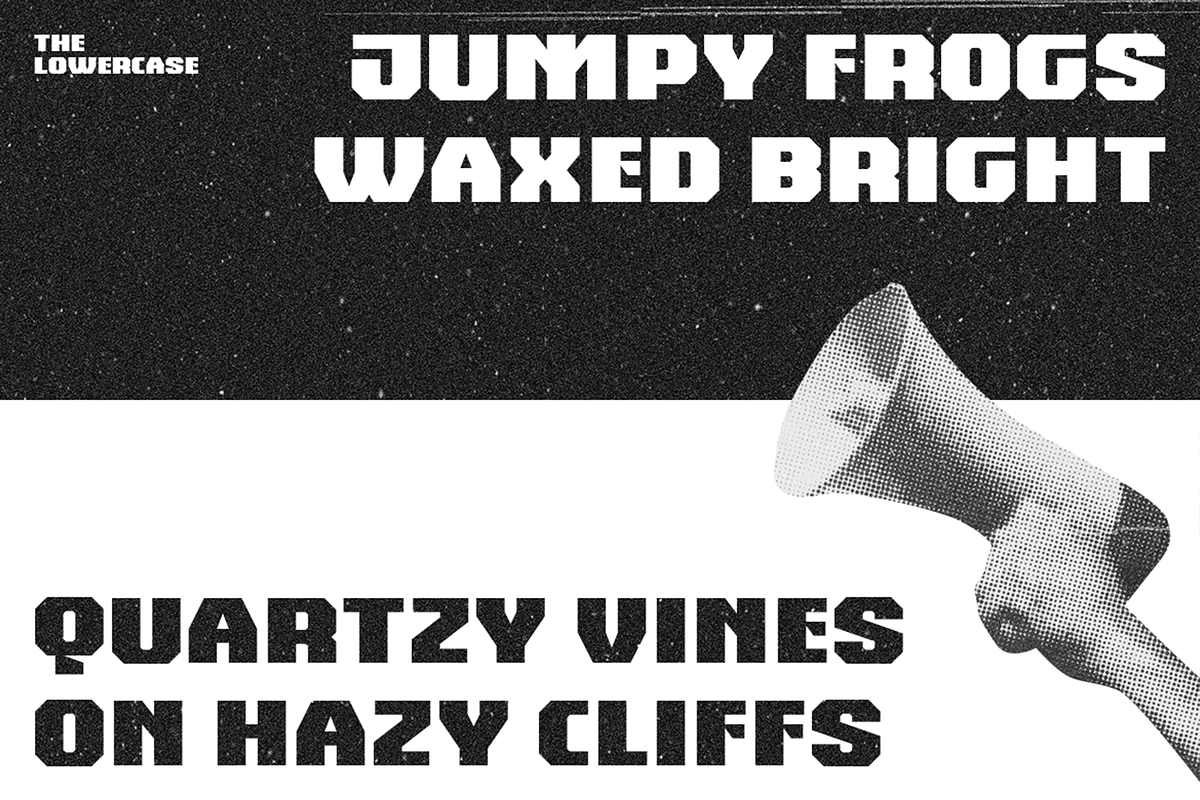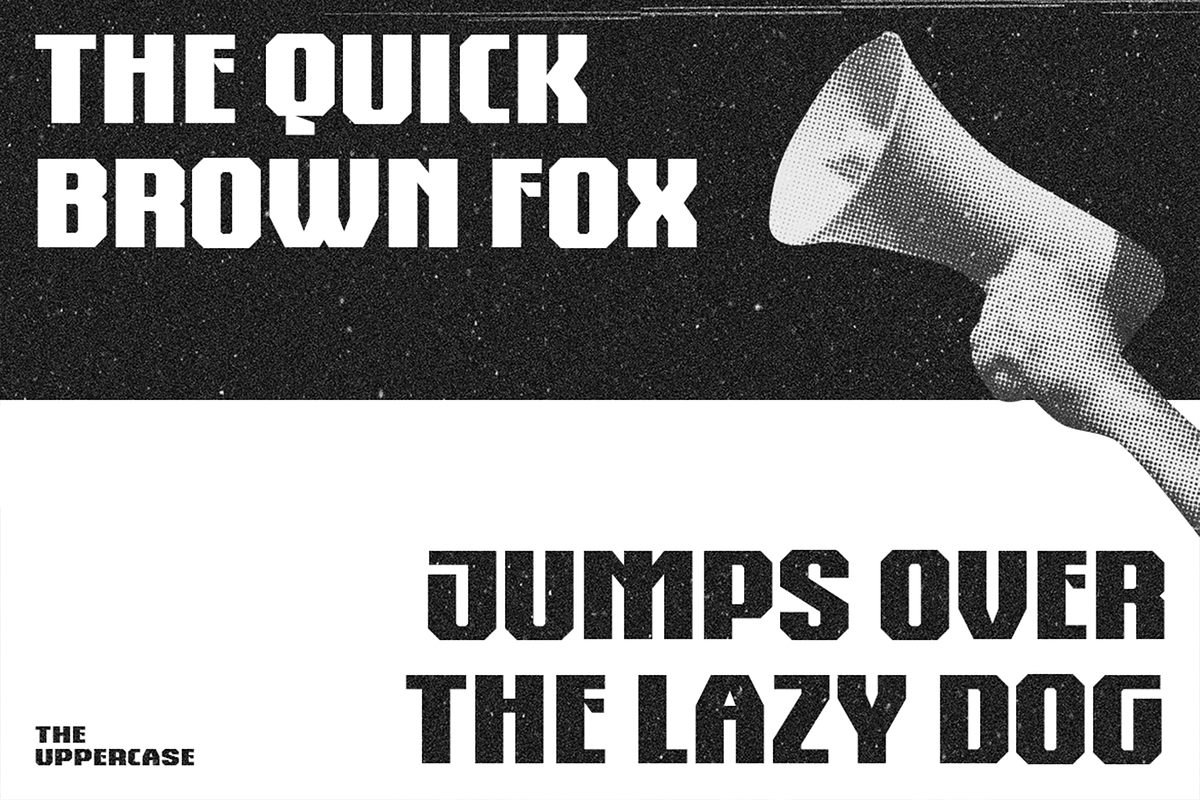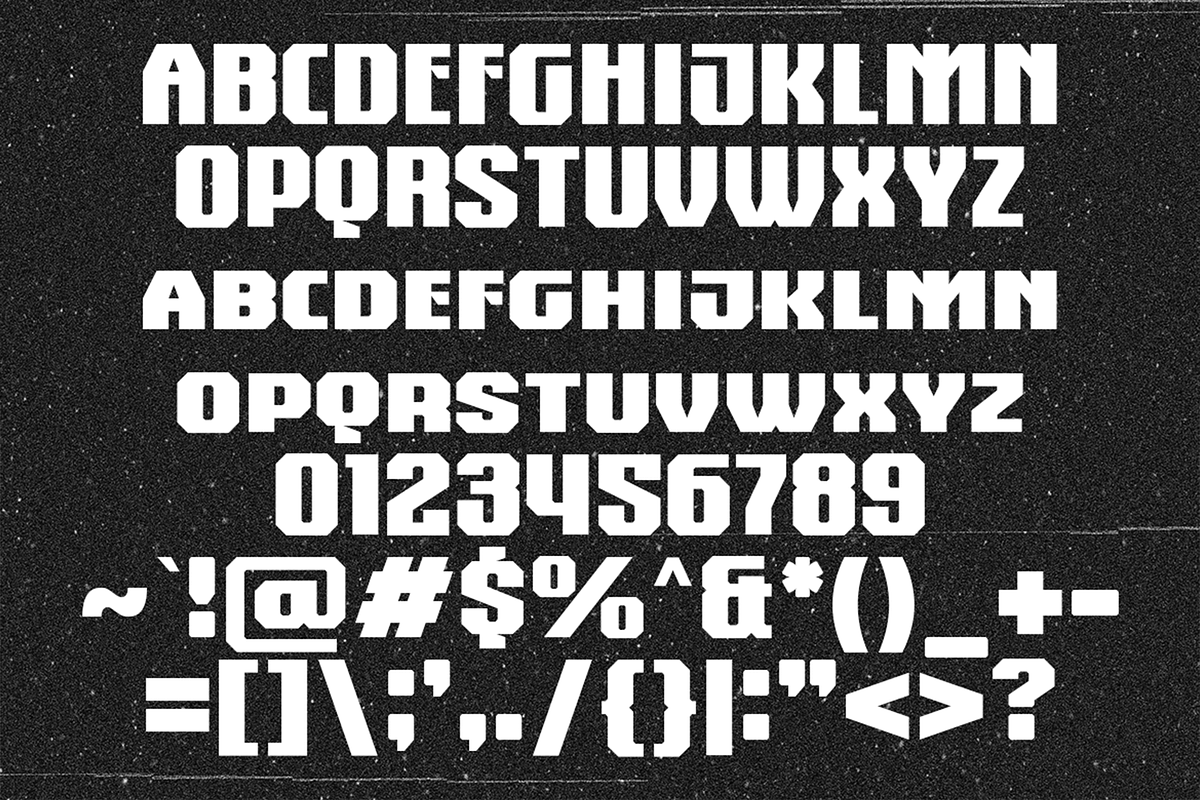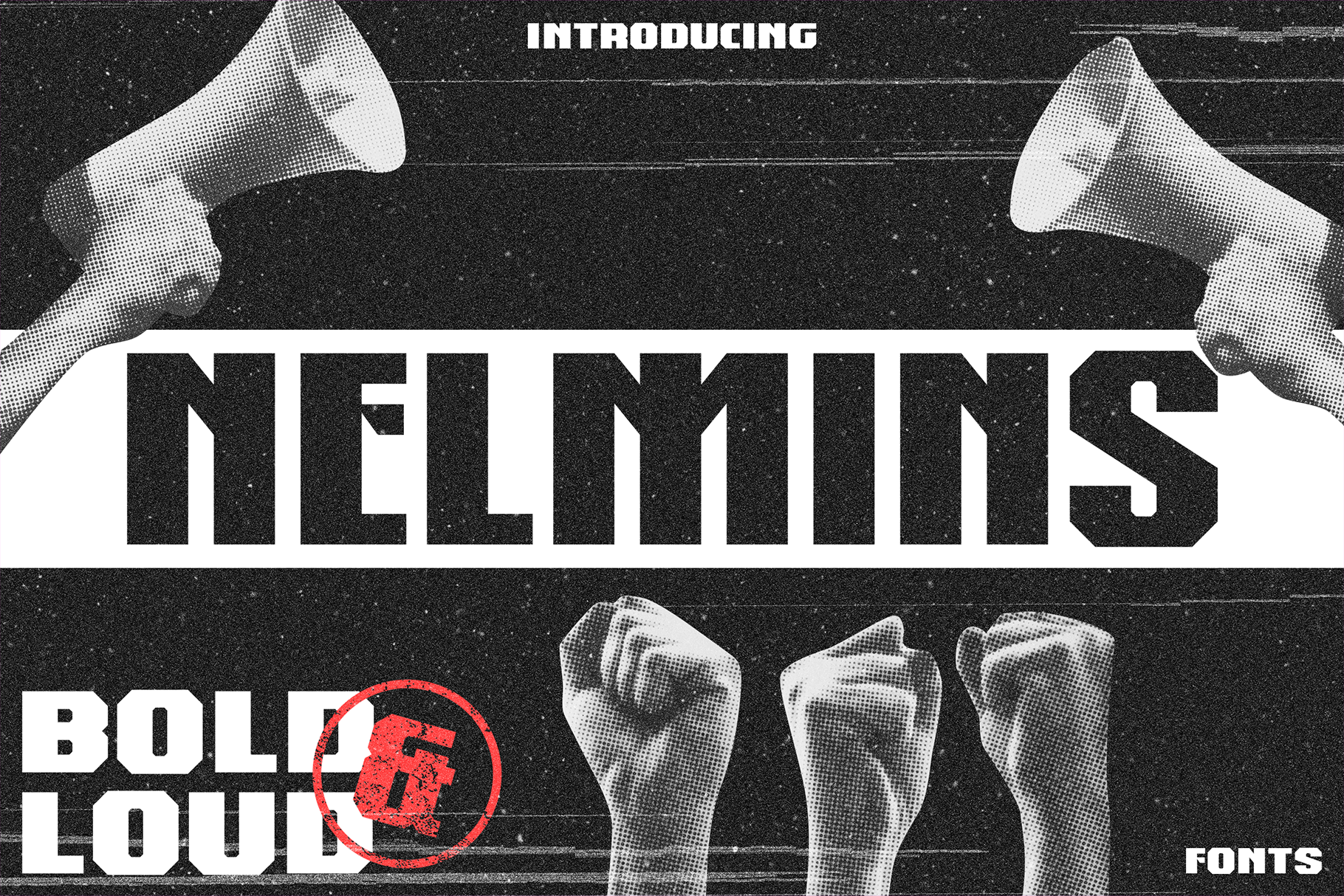
Nelmins - Bold and Loud Fonts
Nelmins: Where Expression Breaks Free
Step into an era when voices were loud, and typefaces were louder. Nelmins captures the raw energy of vintage rebellion, drawing from the spirit of punk band posters, worn-out merchandise, and the bold signs carried in the hands of those who dared to speak.
This font speaks to the bold, the free thinkers, and the creators who aren’t afraid to make their mark. Nelmins doesn’t scream; it stands firm. Subtle yet powerful, it’s perfect for adding edge to your designs, from event posters to album covers.
Craft your story with Nelmins—a nod to history’s boldest expressions, revived for today’s creative rebels.